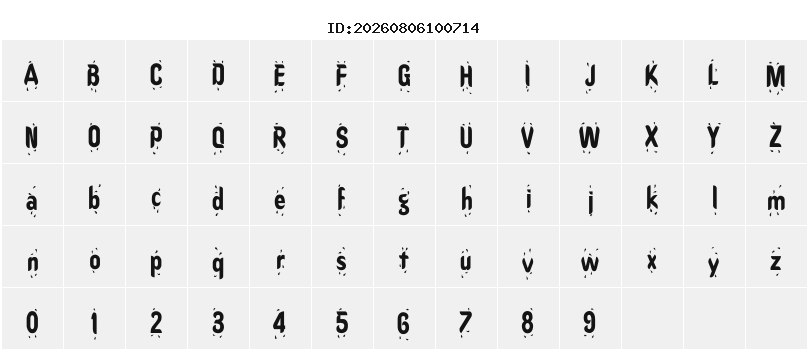
OregonWet Th Preview
About OregonWet Th.ttf
OregonWet Th.ttf is a modern, elegant sans-serif font designed for ultimate readability and visual harmony. Perfect for branding, headlines, web design, and print materials.